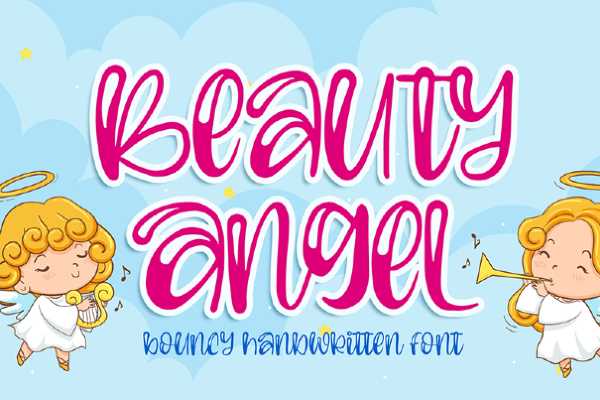
Are you looking for something angelic? Then try out our free online angel font generator tool for creating unique-looking logos and designs. Angel fonts have been around for quite some time. Before the age of the internet angel fonts were primarily used in the health and beauty sector. Angel fonts are known for being well, angelic! These fonts look fantastic on everything from wedding invitations and birthday cards to letters and websites. Using our angel font generator tool, you can create unique and interesting designed - personalised to your exact requirements. The high contrast brush stroke effect and ease of readability are just two things of things that make angle themed fonts very popular.